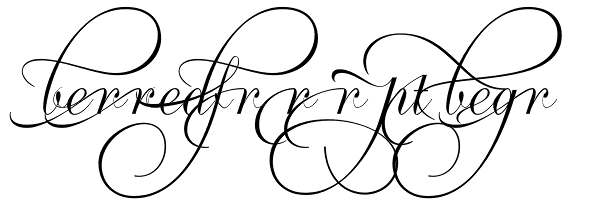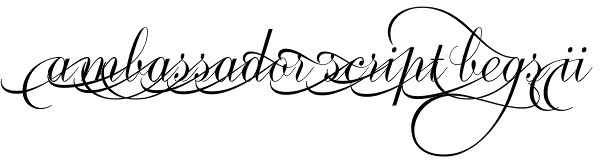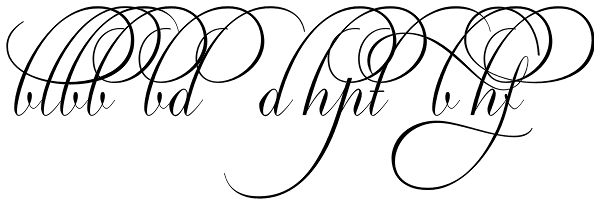
Ambassador Script
When Aldo Novarese designed his “tipo inglese” Juliet typeface, he had a simple objective in mind: Reduce the inclination angle of the traditional 18th and 19th centuries English script in order to make the punchcutter’s job easier and the resulting...